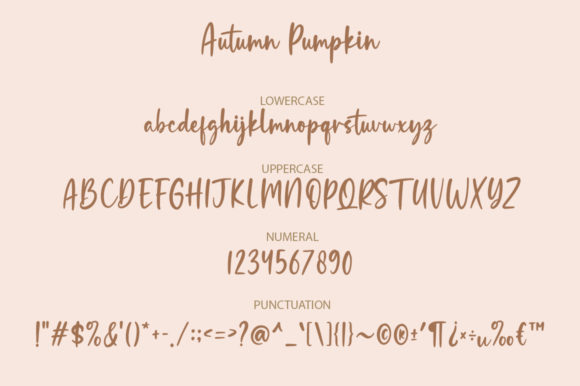
Autumn Pumpkin is a dainty and flowing handwritten font.
Sweet and joyful, this font will be ideal for writing wedding invitations, cards or any other design that may need a romantic, personalized touch!
Autumn Pumpkin Font